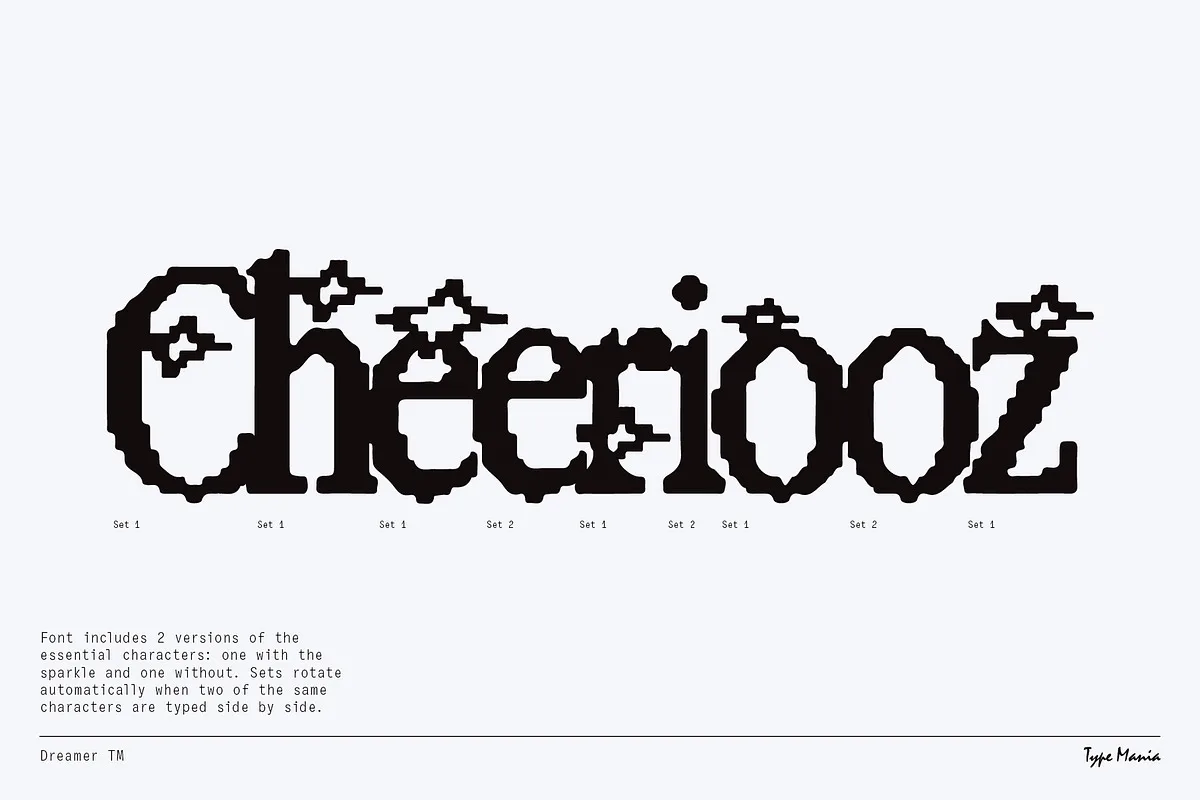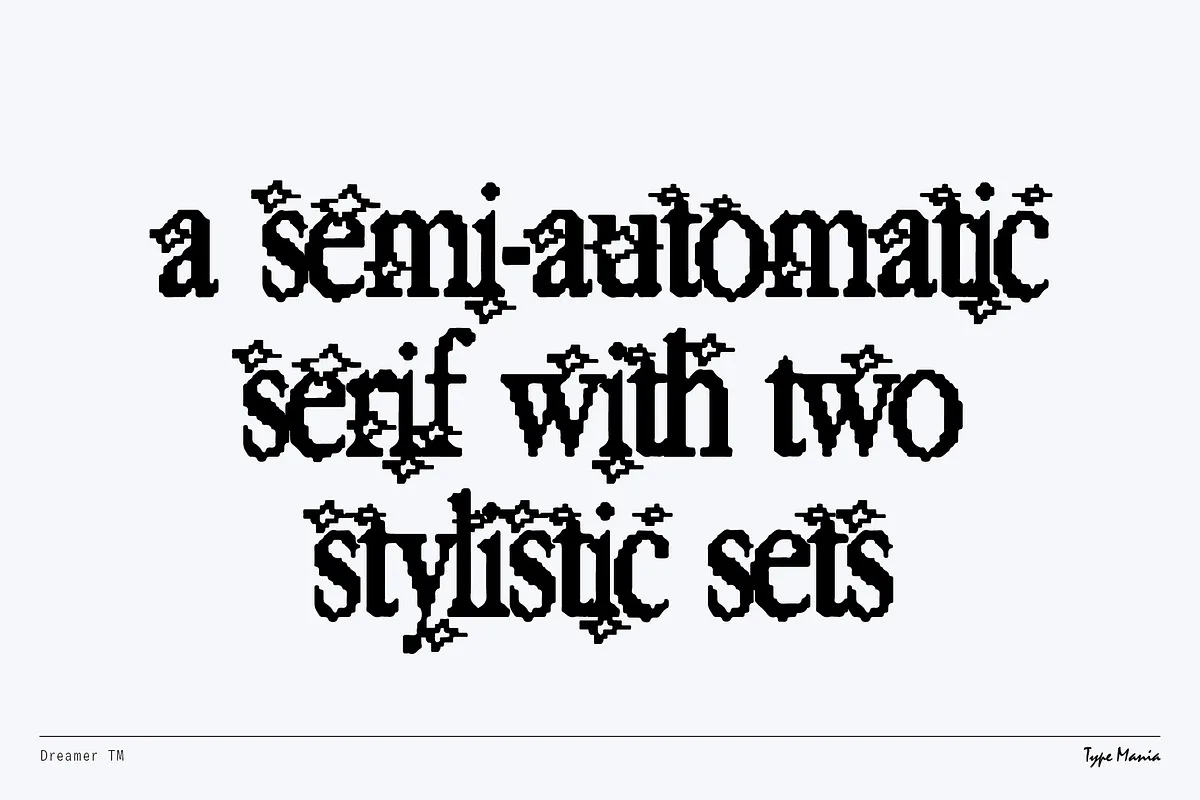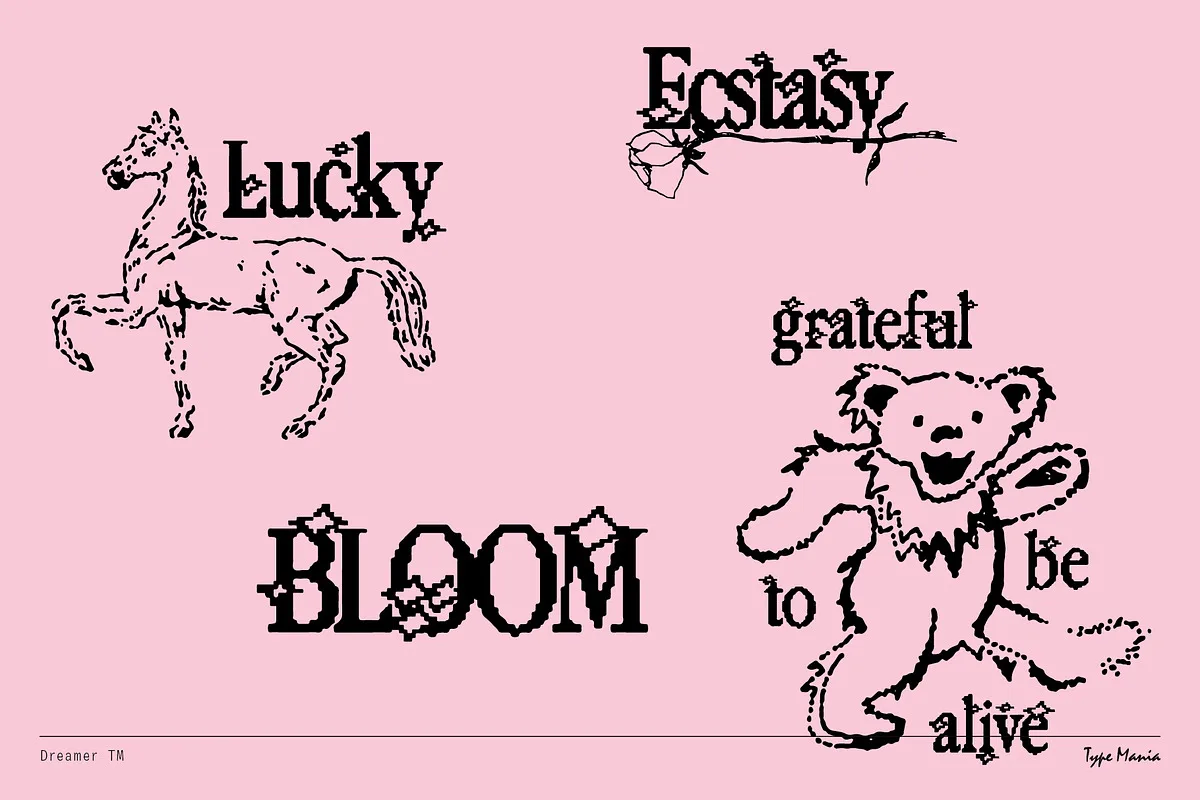
Drift into the fantastic world of Dreamer TM, our emotive serif font channeling the Y2K aesthetics. Whether you’re designing a poster, creating a logo, or adding a nostalgic touch to your branding, Dreamer TM lends an edgy twist to your project.
Dreamer TM Font – Y2K Aesthetics